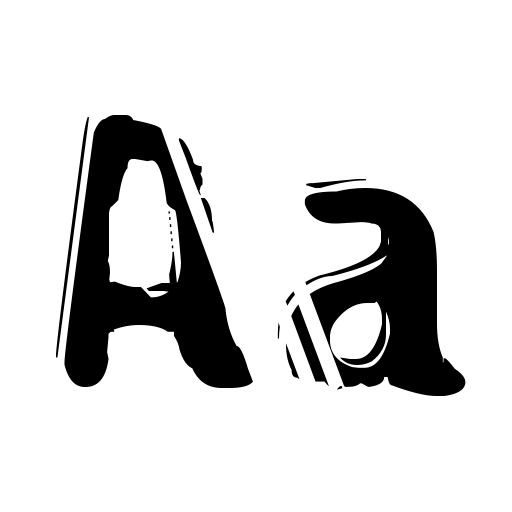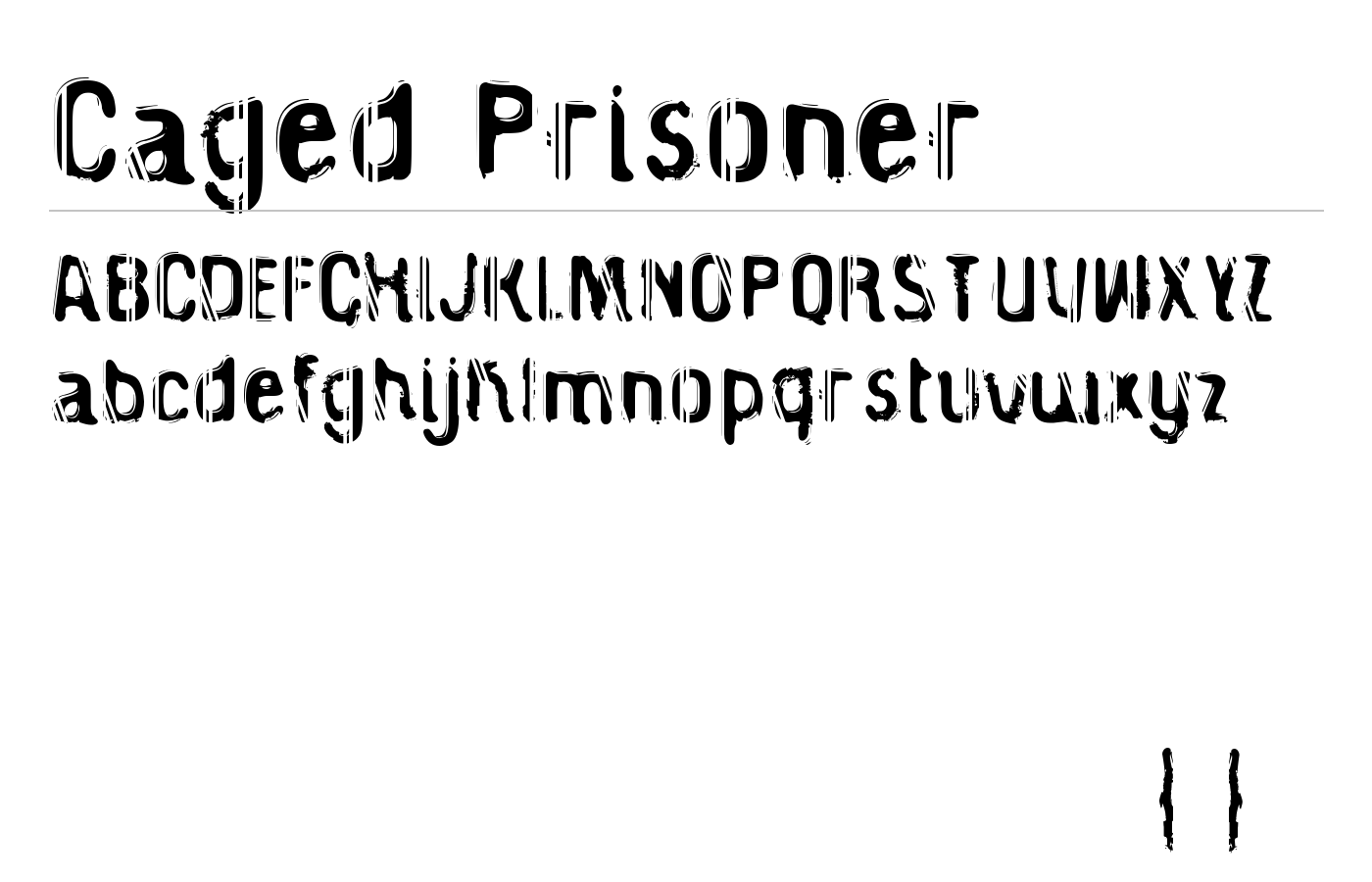
Caged Prisoner is a bold, distressed sans serif font featuring a rough, eroded texture that gives it a gritty, rebellious character. Its condensed letterforms with irregular edges evoke a raw, urban feeling, making it ideal for edgy, street-style designs, posters, or branding that aims to capture a tough, underground vibe. This font works best in headlines or display uses where its unique worn effect can make a strong visual impact.
Caged Prisoner Font
About Caged Prisoner Font